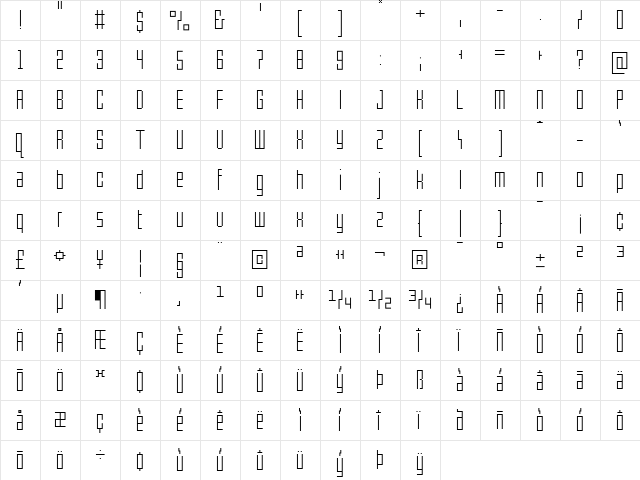
pxlxxl Light Regular
| Foundry | Levi Szekeres |
| Designer | Levi Szekeres |
Design Context for pxlxxl Light Typeface
pxlxxl Light offers clean, dependable letterforms without strong stylistic allegiance, making it a practical choice for designers who need flexibility. The delicate stroke weight brings airiness and refinement to layouts.